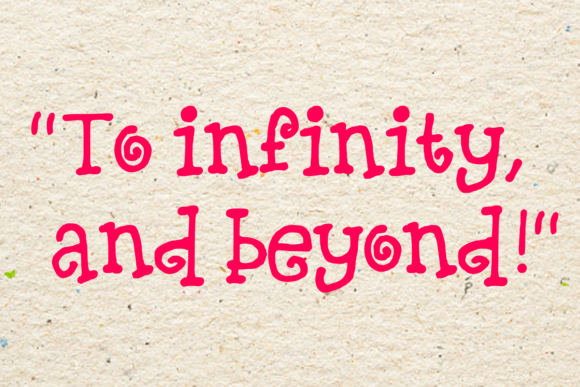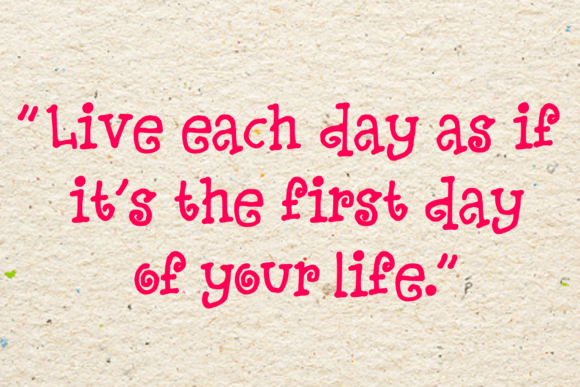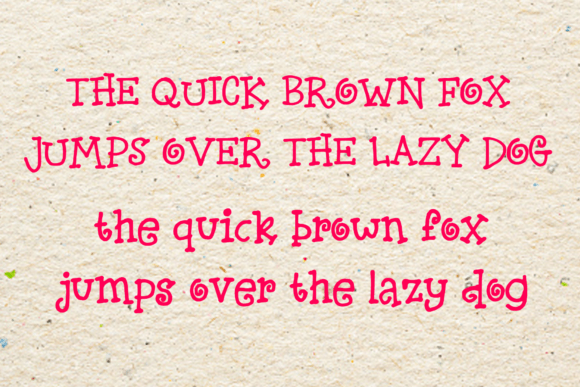
Fancy Doodle
About Fancy Doodle
Fancy Doodle is a fun and friendly handwritten font. You can use it for anything ranging from t-shirts, kids’ book designs, and greeting cards to stickers and posters, or anything that needs a casual touch. Fall in love with its incredibly versatile style and use it to create lovely designs!